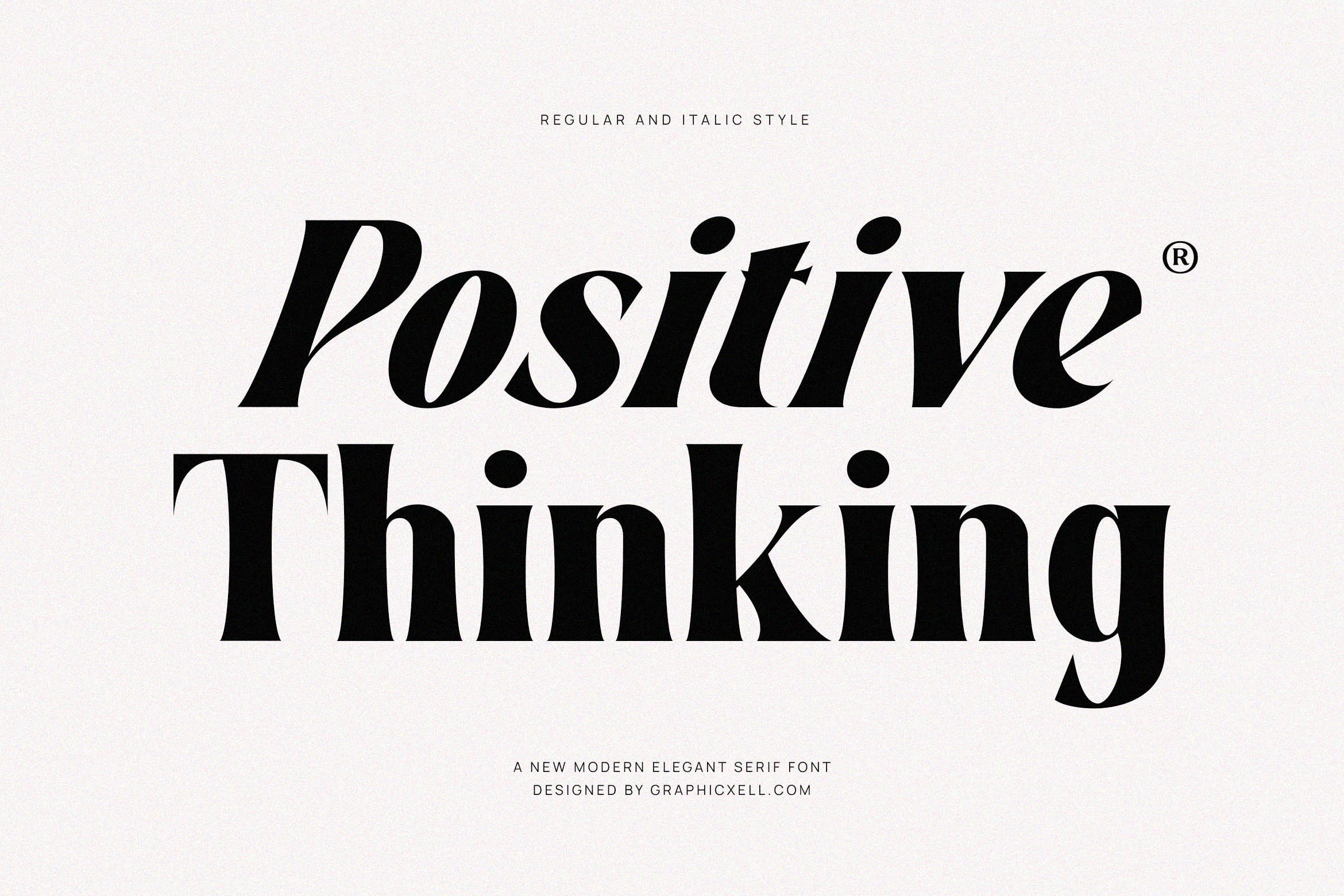
Positive Thinking Family Serif Font
Are you looking for a new, modern, elegant serif font? Positive Thinking Font can be considered a font that delivers elegance and style to the text. This font also looks modern, so it will be suitable for present-day product design. Then, what is the uniqueness of the Positive Thinking font? Well, we assure you that the serif font is exquisite. Every alphabet has a clear contrast between its own thick and thin. Positive Thinking allows you to produce a great design using regular and italic font. Positive Thinking font makes the readers feel so easy to read. The elegance, unified with the font, also makes it look more classy, stylish, and gorgeous. As a modern, elegant, and classy font, dozens of uses are suitable for this font. The Positive Thinking font is the proper application for Instagram font posts or stories, fashion magazines, newspapers, interior brochures, branding, cinema fonts, and other projects.